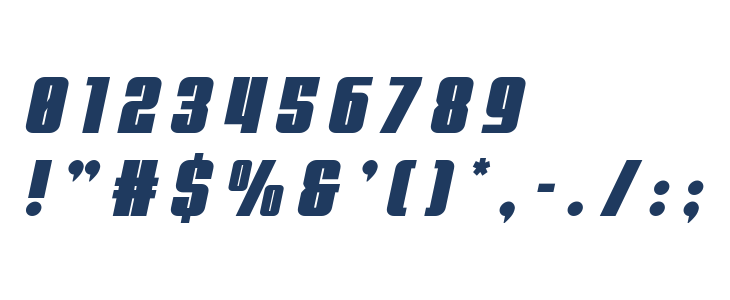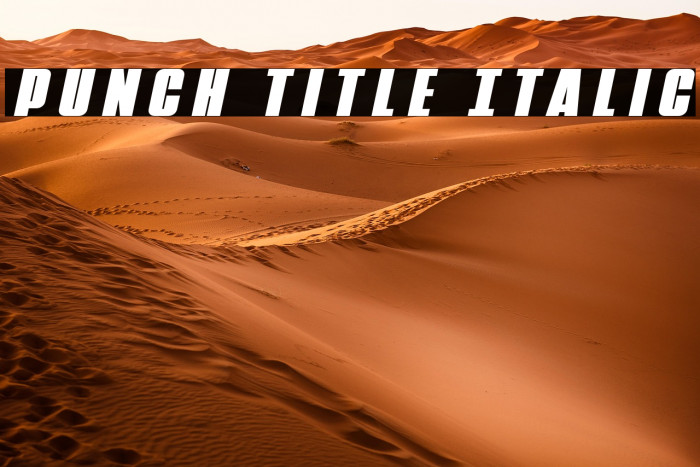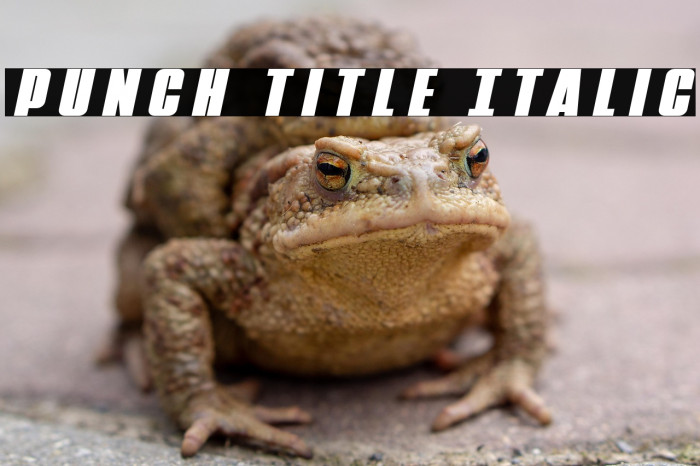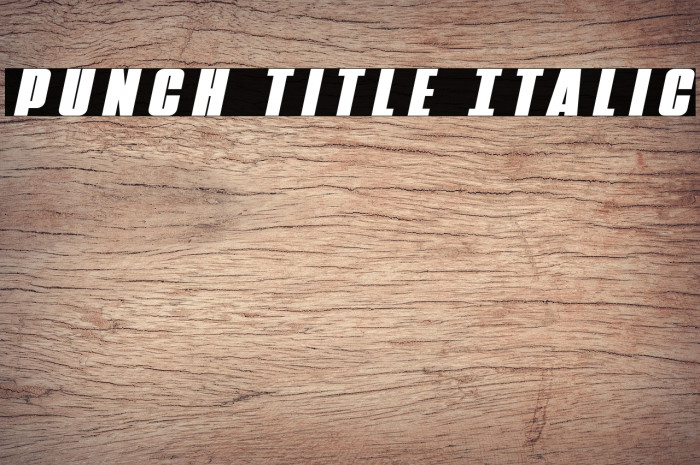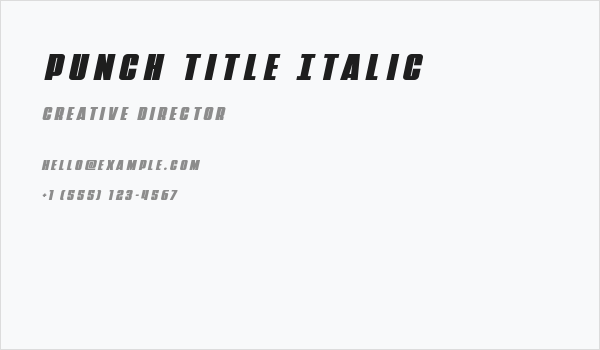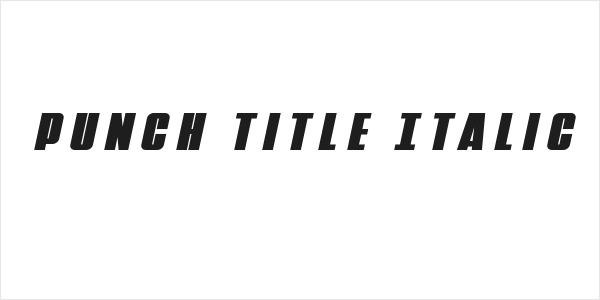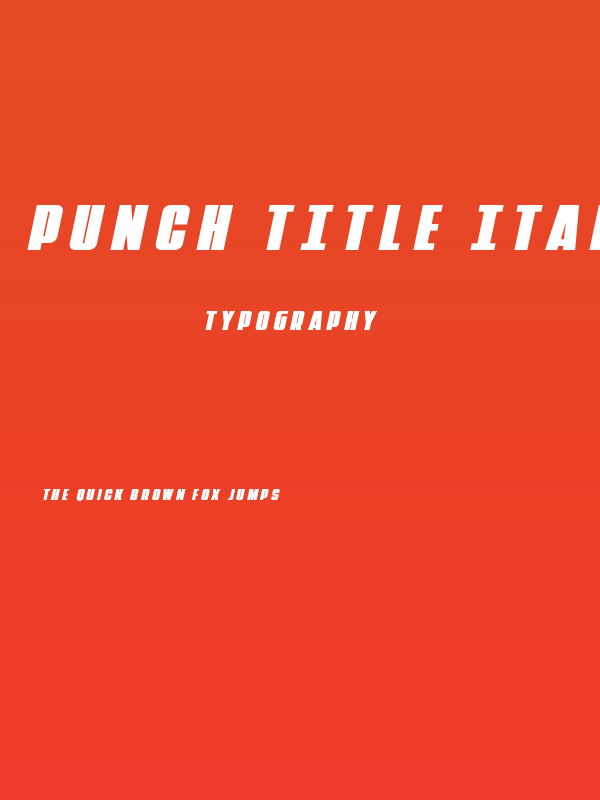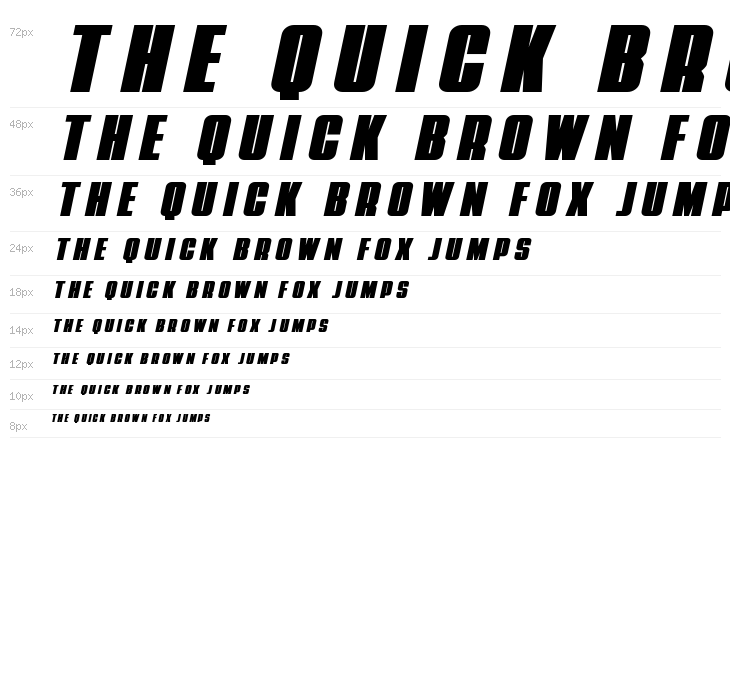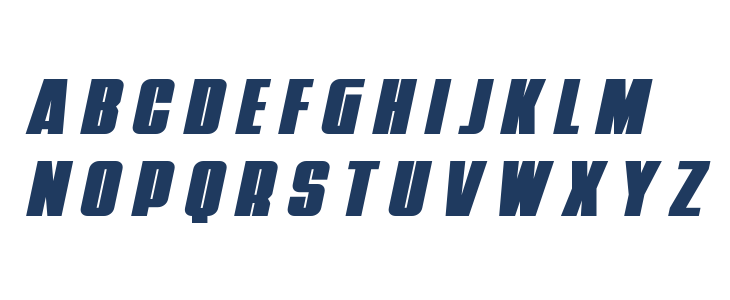
Punch Title Italic Font
Punch Title Italic Description
This font features a bold and dynamic style with a strong italic slant, giving it a sense of motion and urgency. The characters are robust and impactful, with thick strokes that convey strength and confidence. The uppercase letters are particularly striking, with a slightly condensed form that enhances their boldness. The numbers and special characters maintain the same bold and italicized characteristics, ensuring consistency across all glyphs. This font's design is ideal for making a statement, capturing attention with its assertive and energetic appearance.